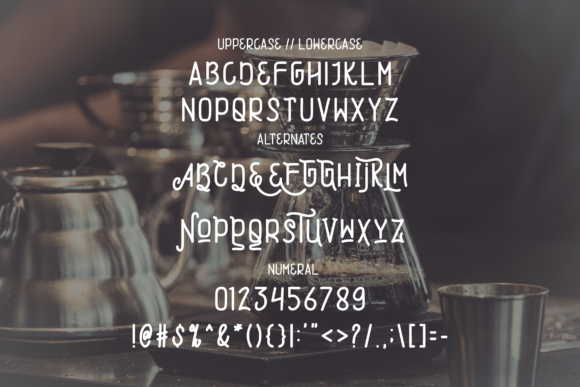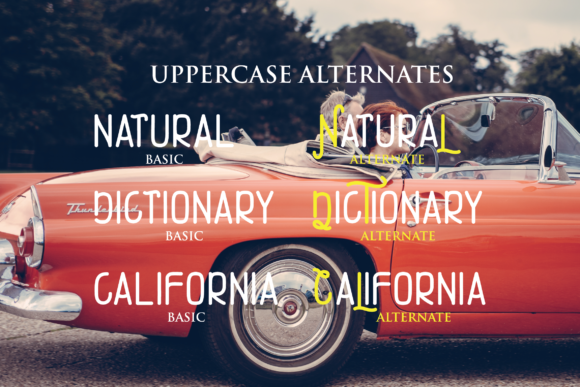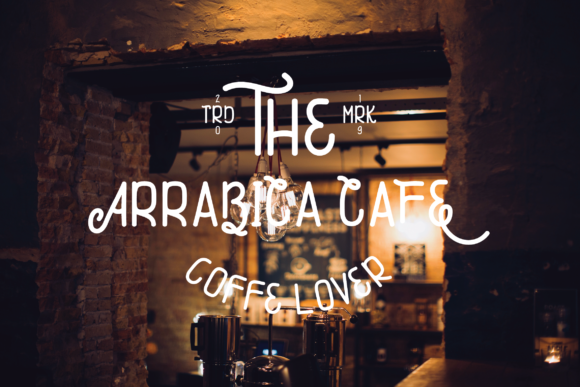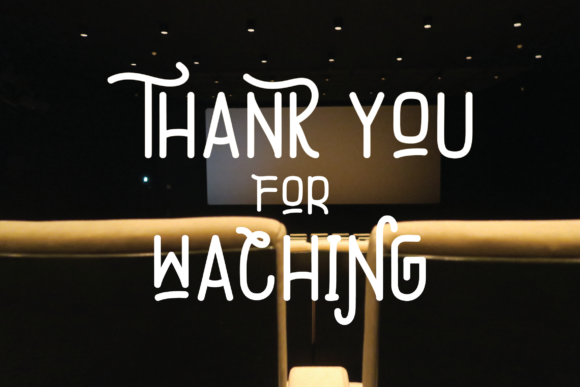
Annalystics Font
About Annalystics Font
The Annalystics is a beautiful monoline script featuring a series of unique vintage-style characters.
It’s perfect for vintage branding, logo & label designs, clothing, locking, and more.